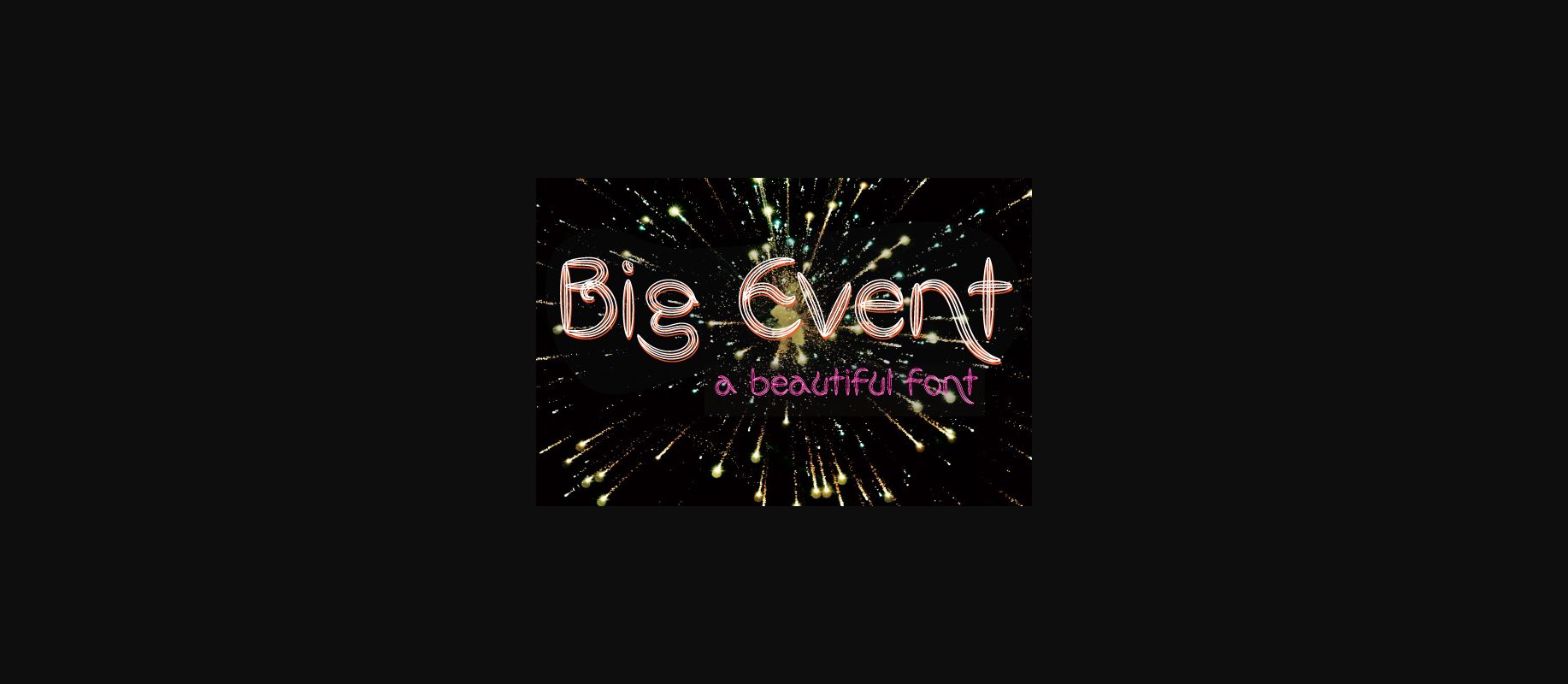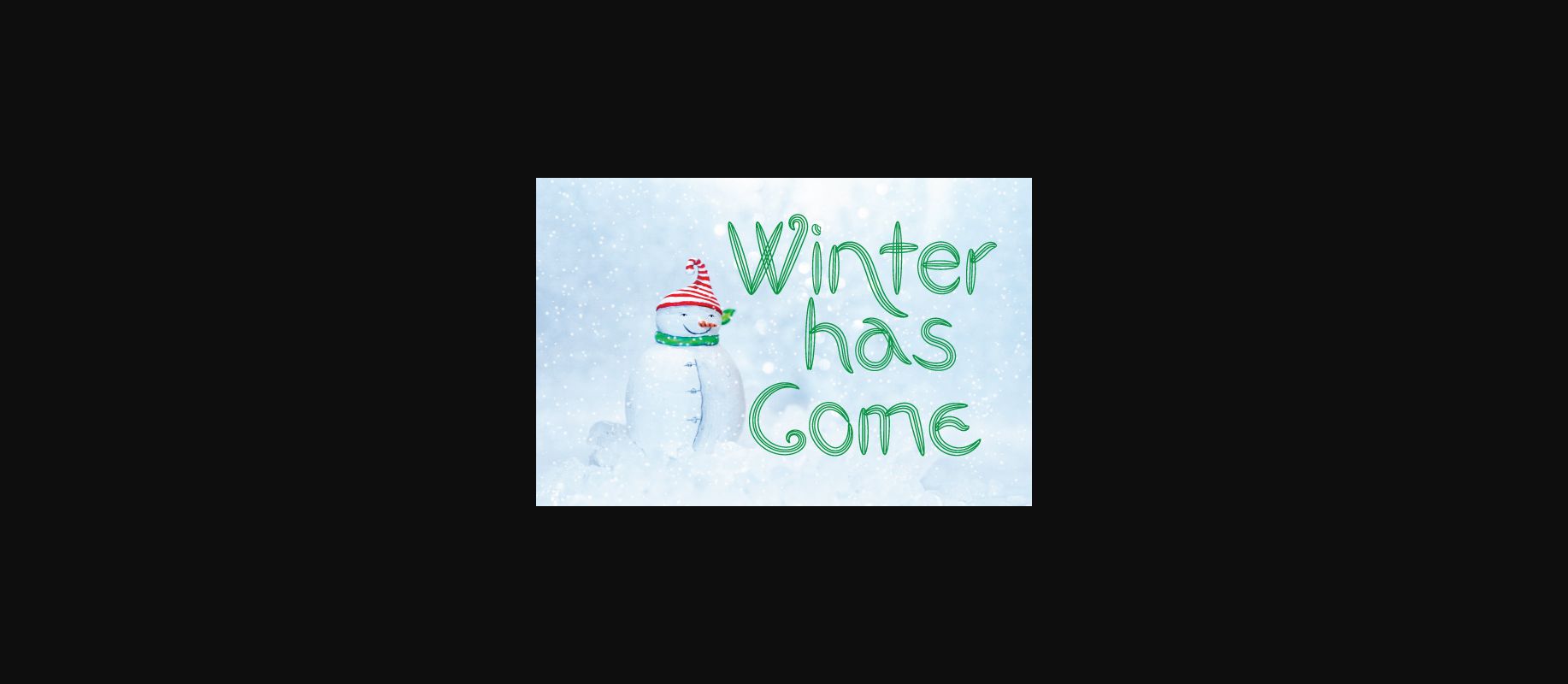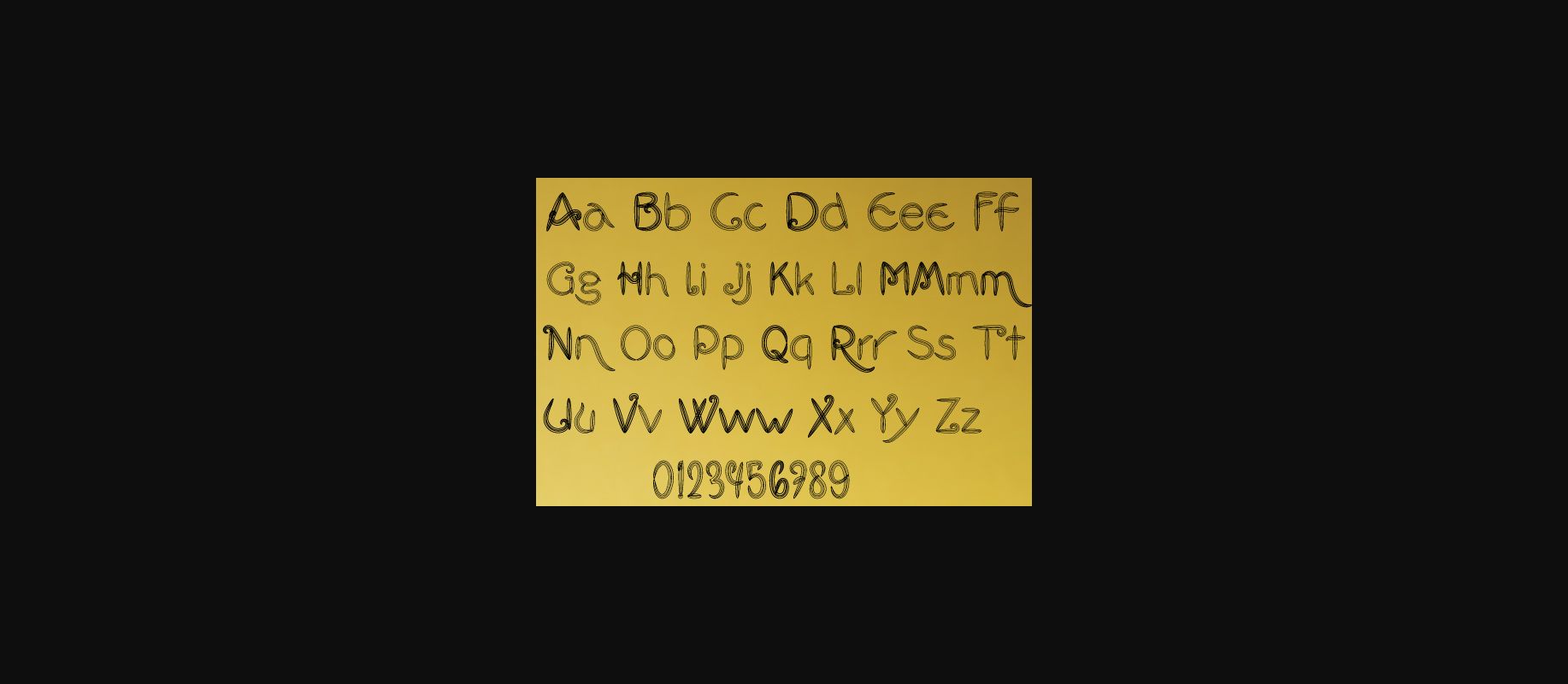
Big Event Font
About Big Event Font
Big Event is a neat and modern decorative font. No matter the topic, this font will be an incredibly asset to your fonts’ library, as it has the potential to elevate any creation.